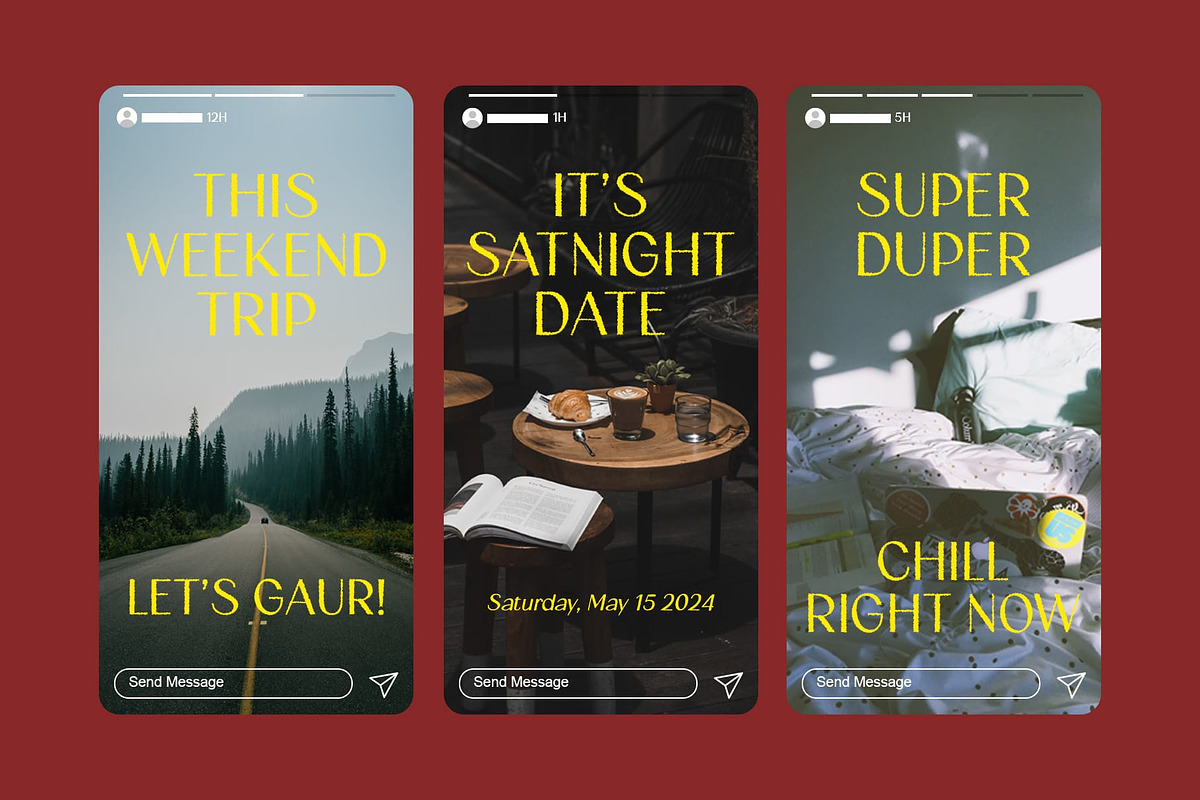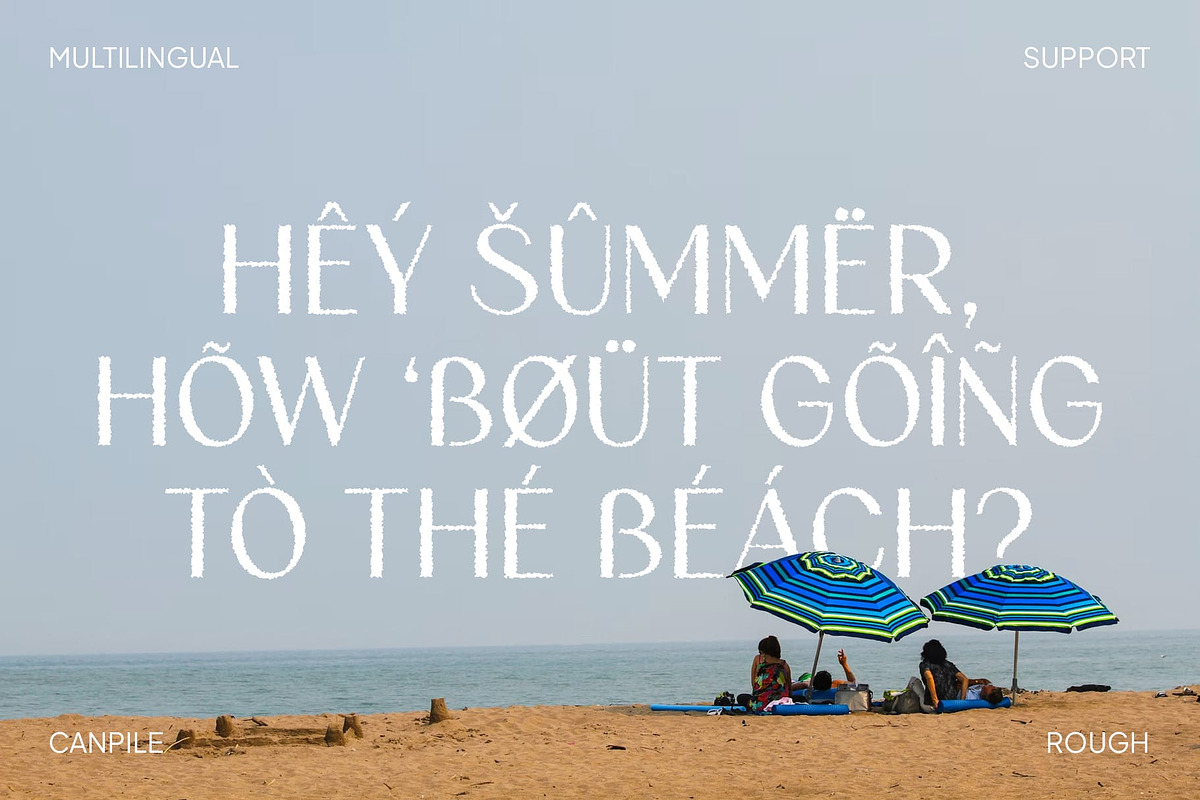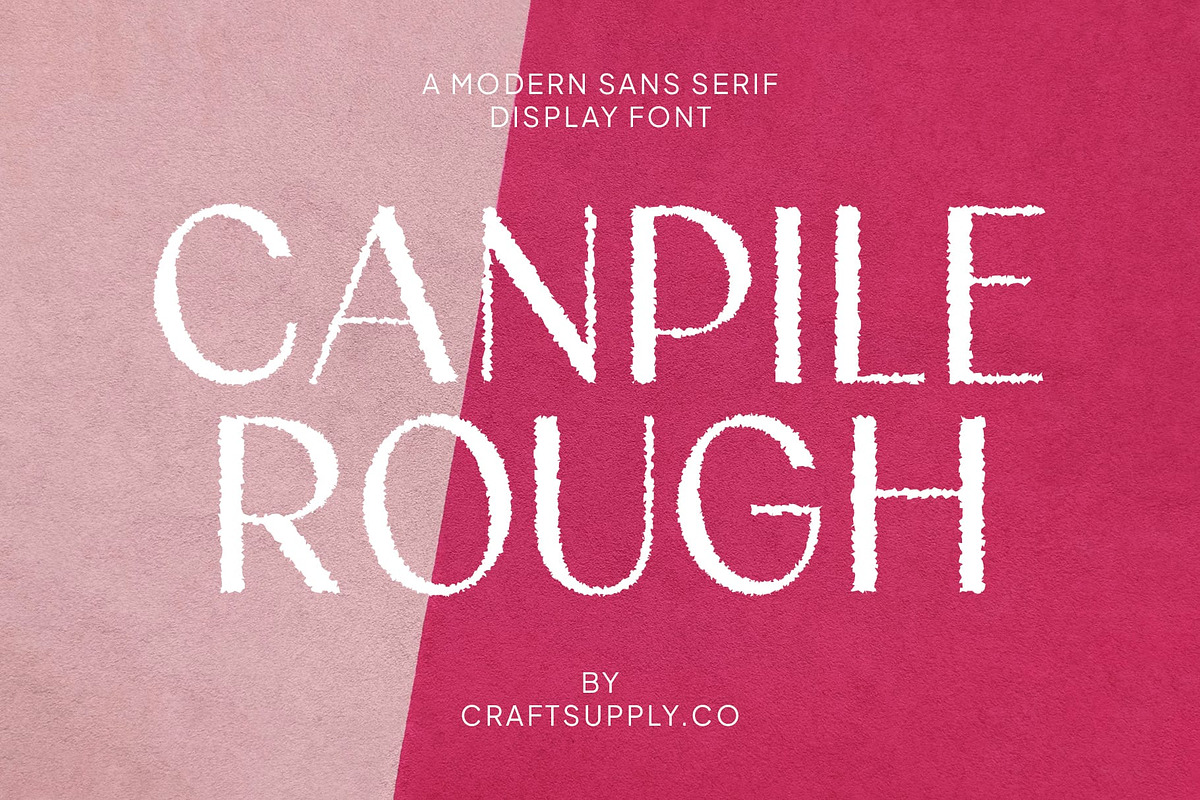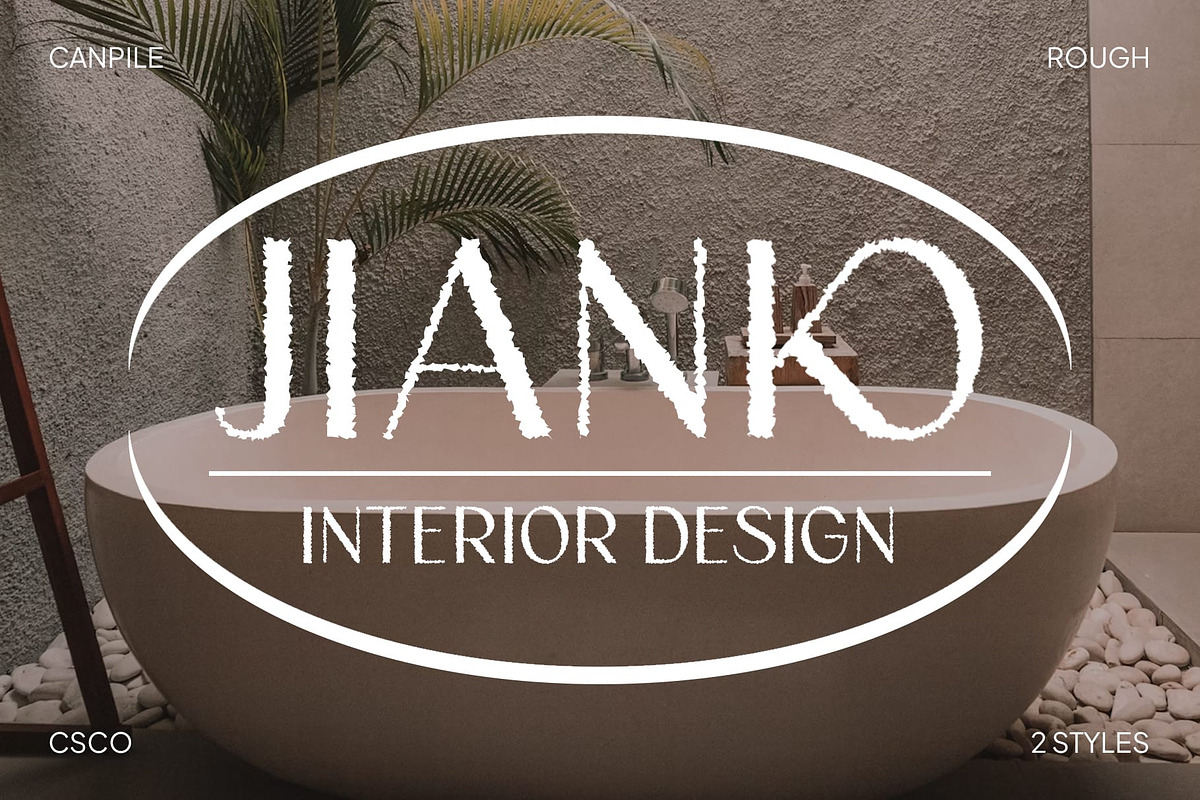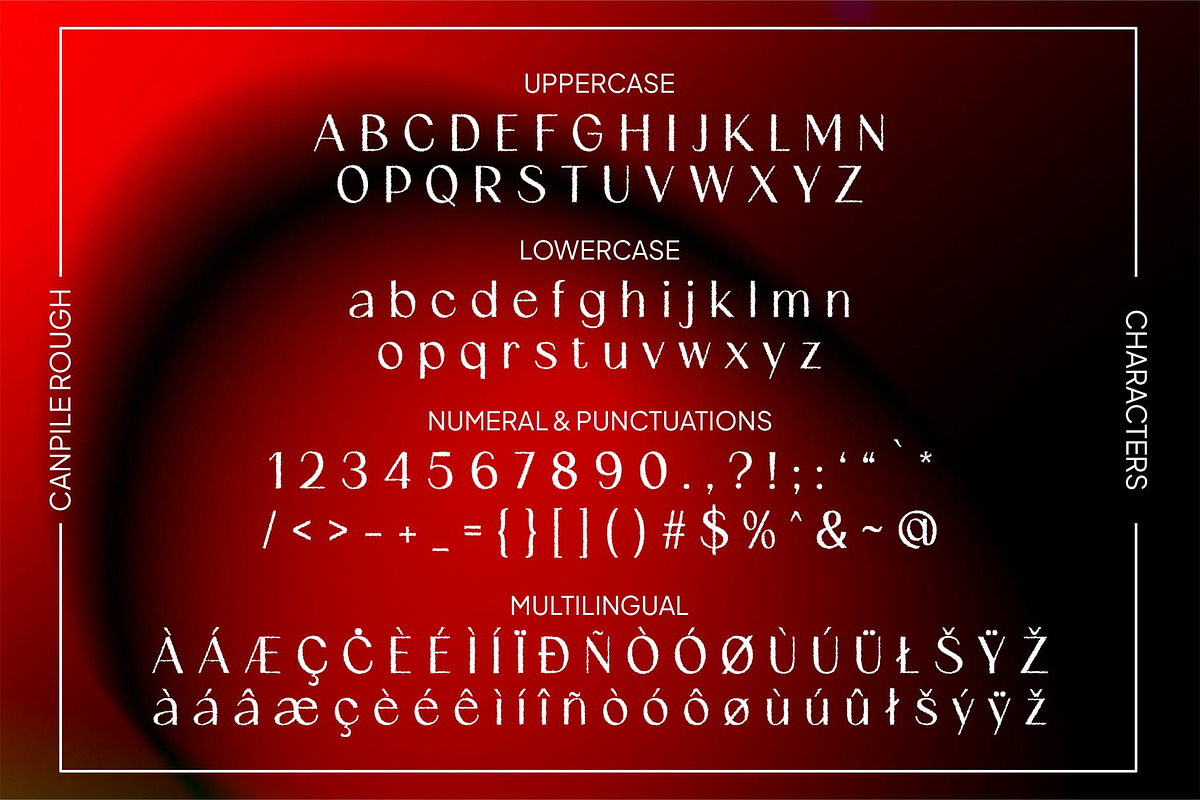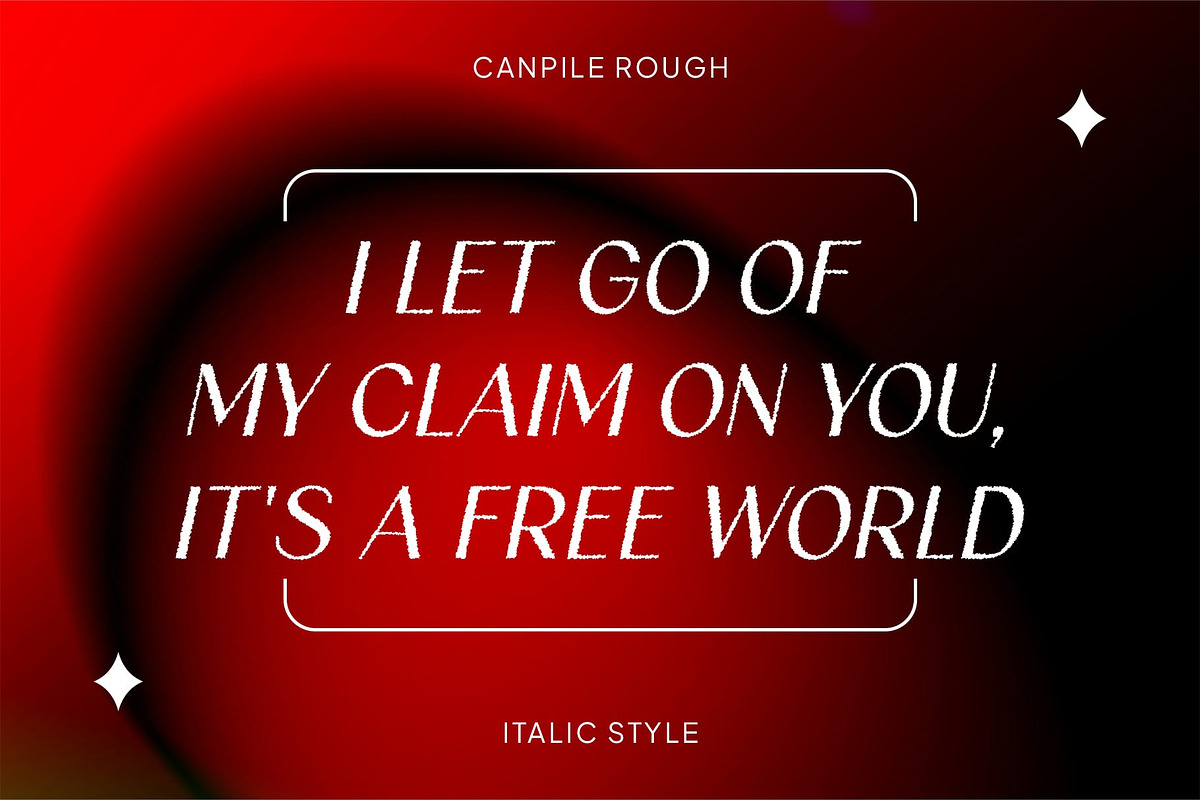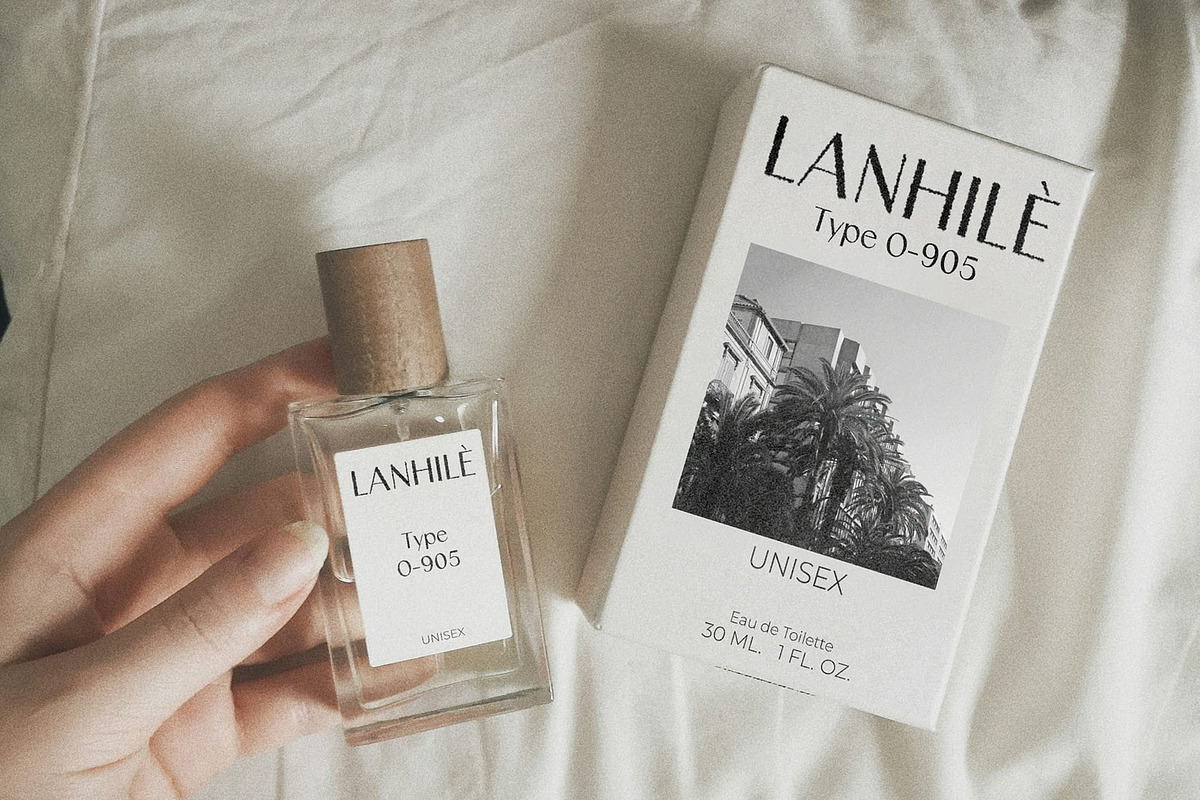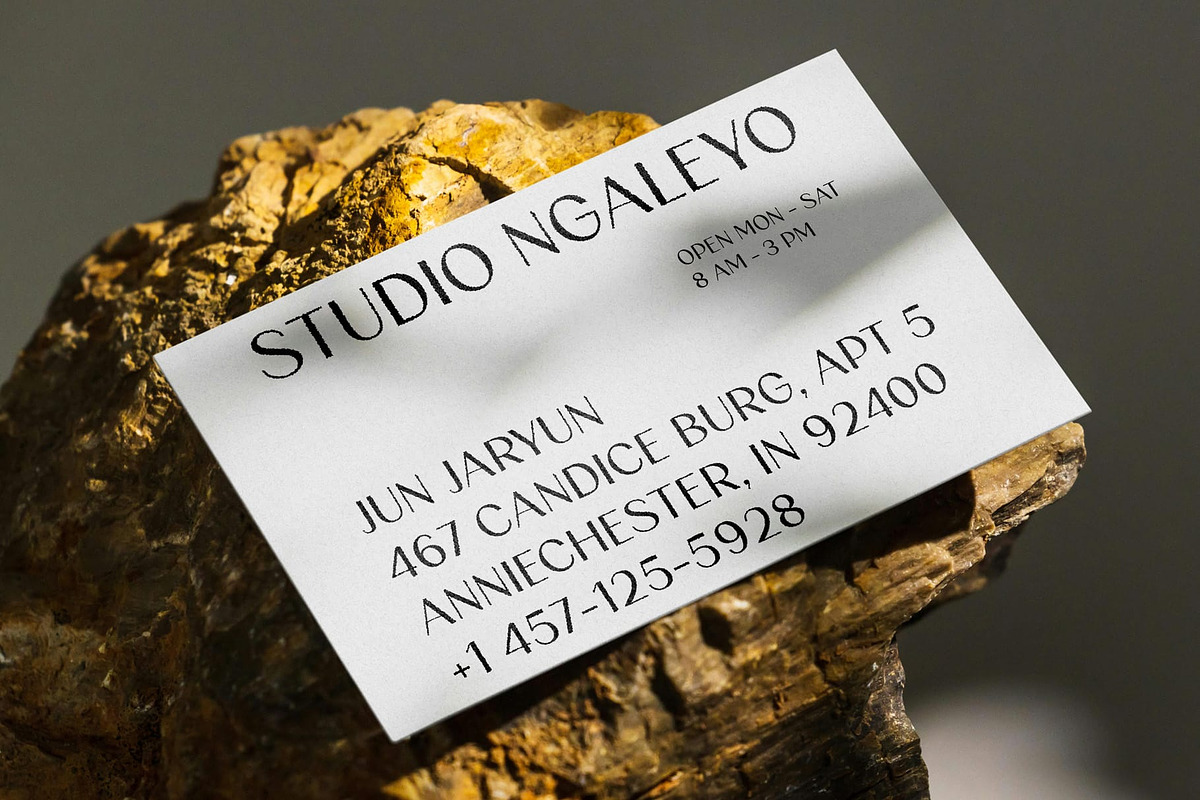
Canpile Rough
Canpile Rough: Contemporary Elegance with a Rough Edge
Modern Sans-serif Font with a Rough Effect
Canpile Rough is a modern sans-serif font that blends elegance with a contemporary roughness. Its design remains clean and minimalist like modern sans-serif fonts, but with the addition of a rough texture that adds dimension and a unique character.
Elegance Meets Contemporary Roughness
Canpile Rough combines elegance with a contemporary roughness, making it ideal for designs that aim to create a combination of luxury and rugged skill. The rough effect adds depth and character to the font, giving it a unique and eye-catching appearance.
Suitable for Various Designs
Whether you’re creating branding materials, editorial layouts, or web designs, Canpile Rough is sure to make a statement. Its blend of elegance and roughness makes it a versatile choice for a wide range of design projects.
Elevate Your Designs with Canpile Rough
Elevate your designs with Canpile Rough, where elegance meets contemporary roughness. Its unique combination of clean lines and rough texture makes it a standout choice for designs that demand sophistication and style.